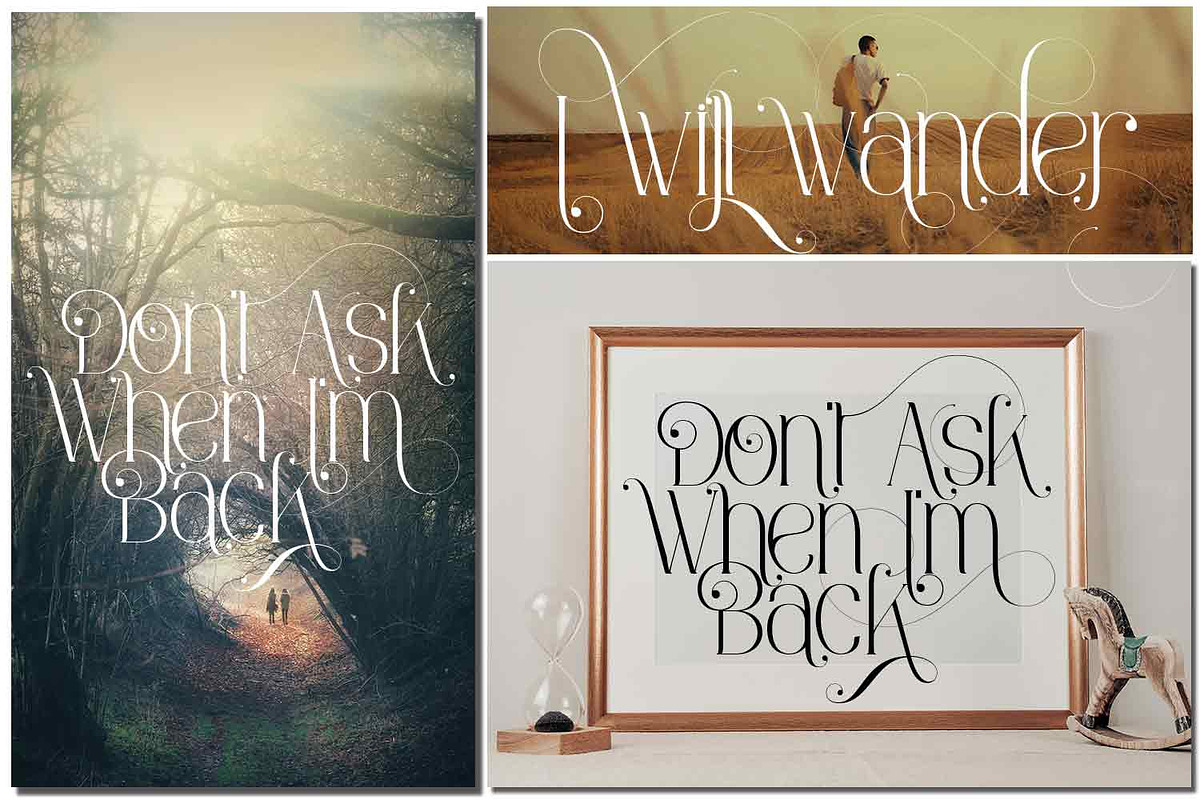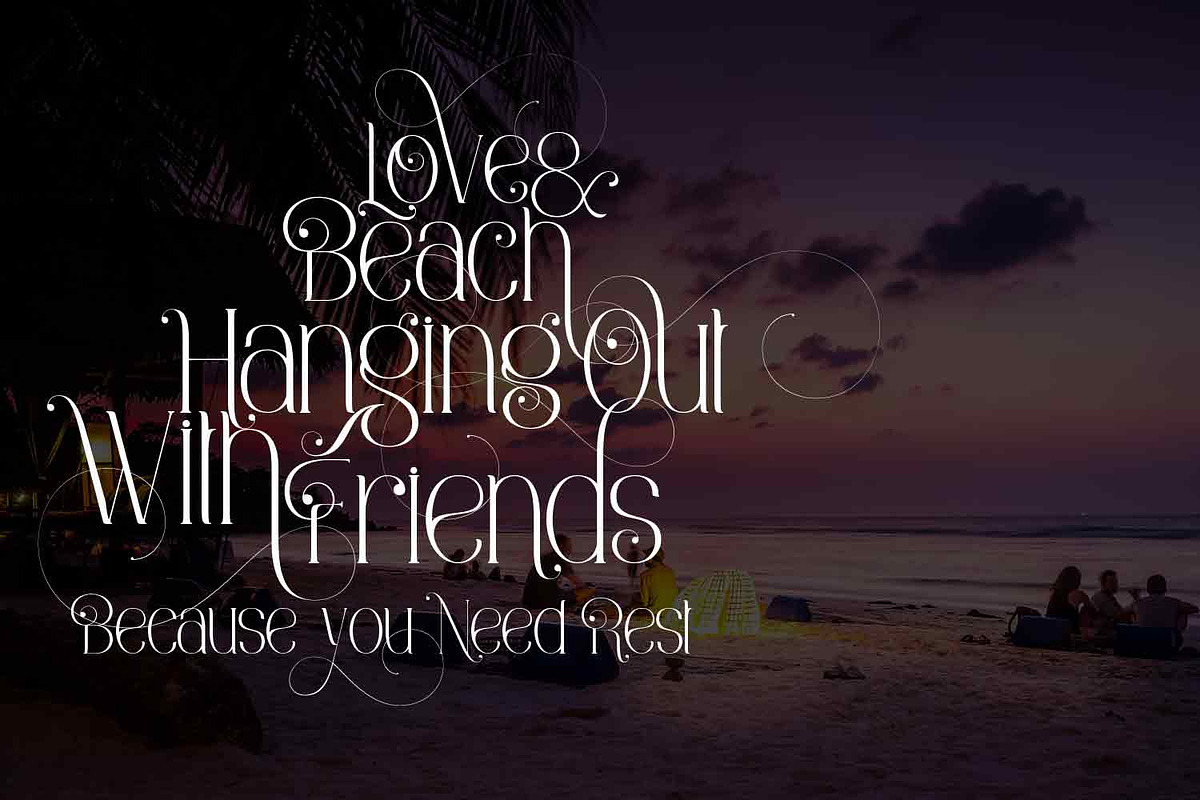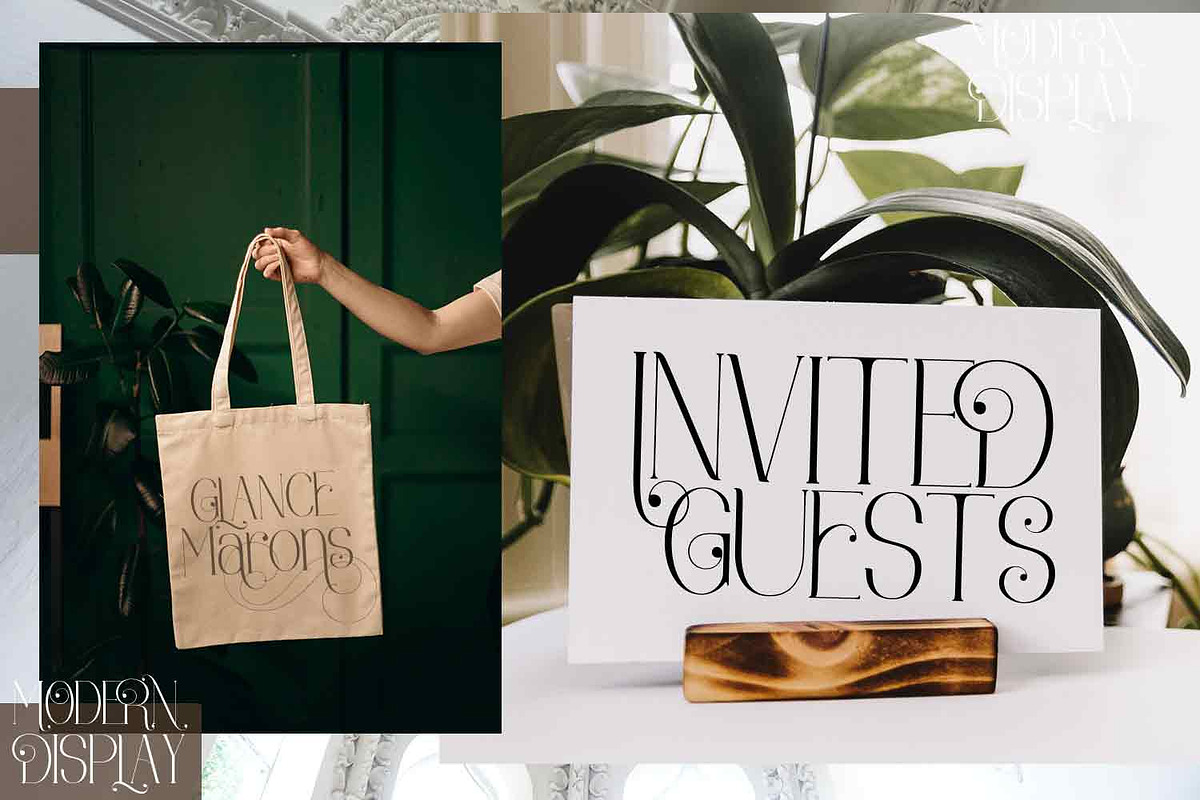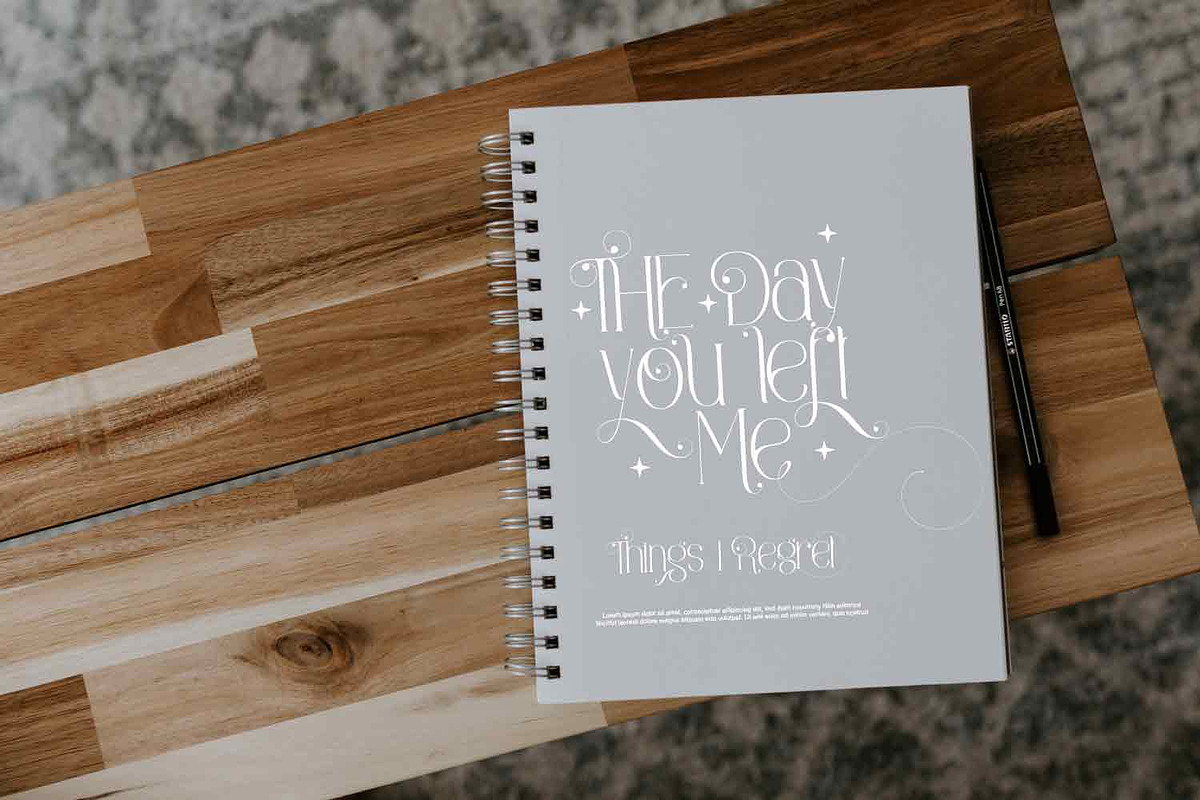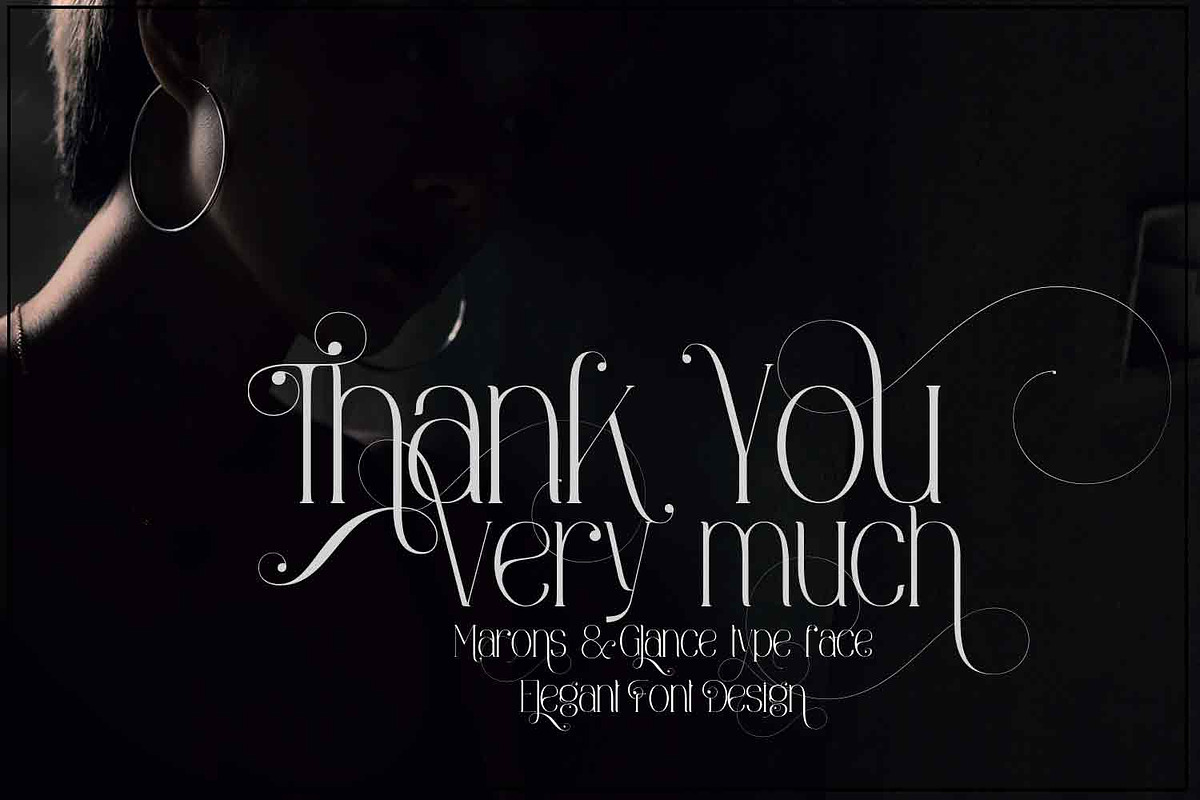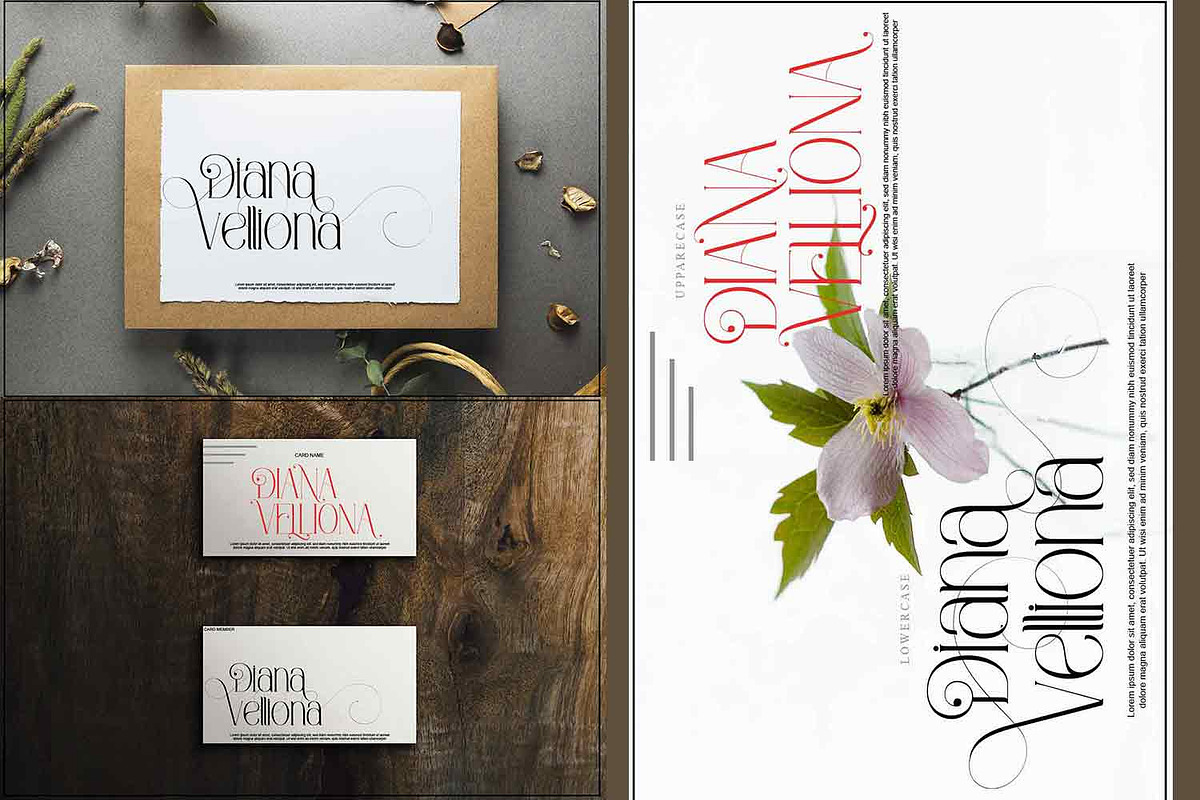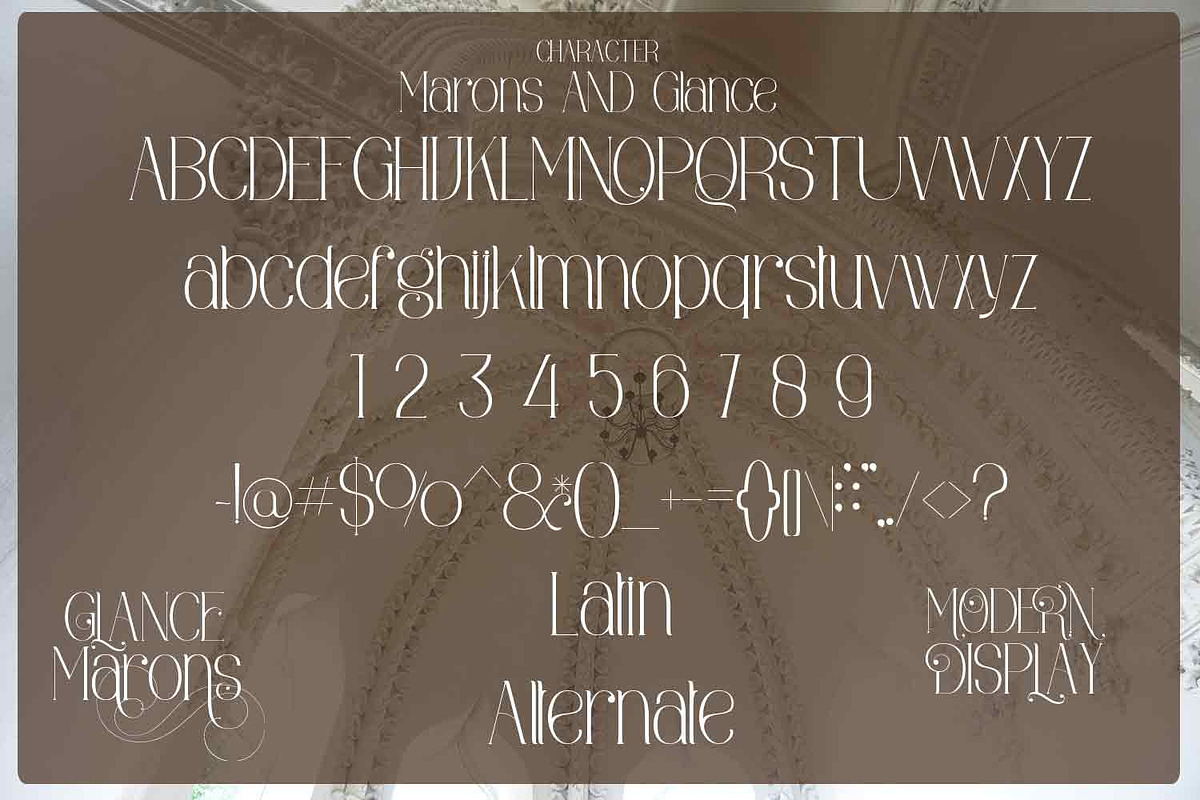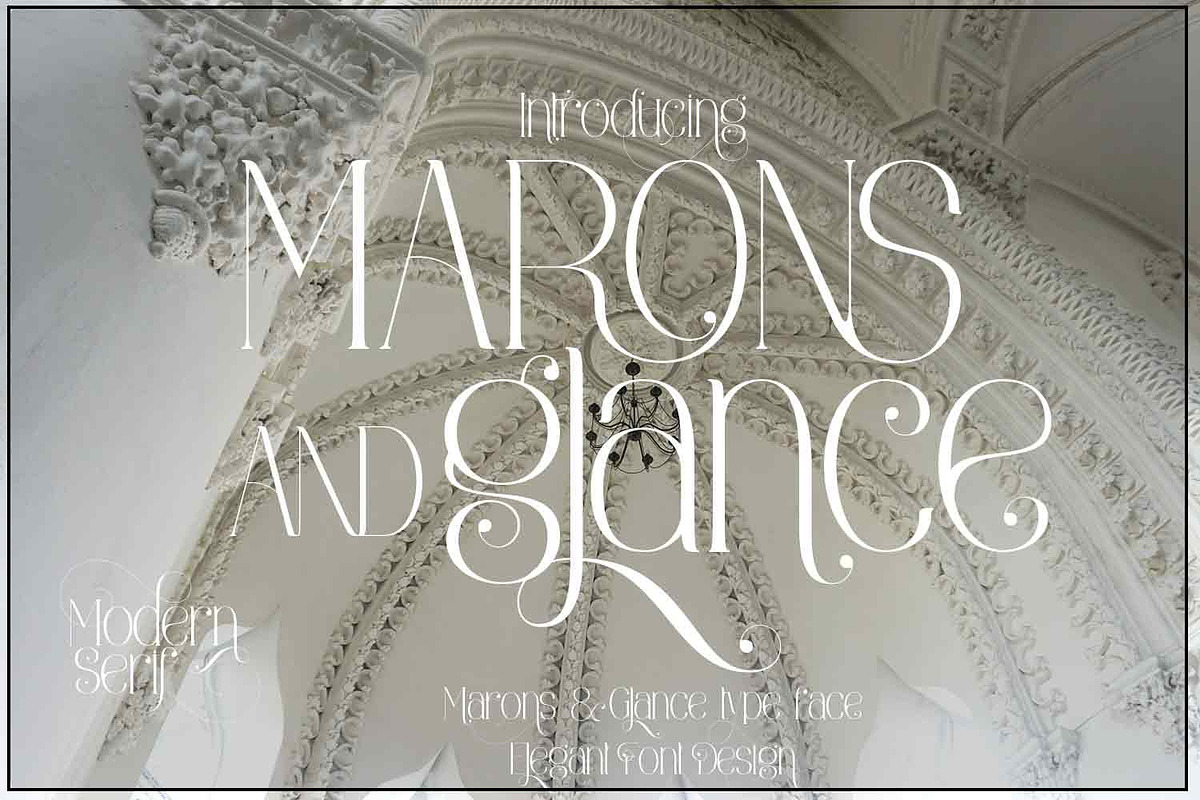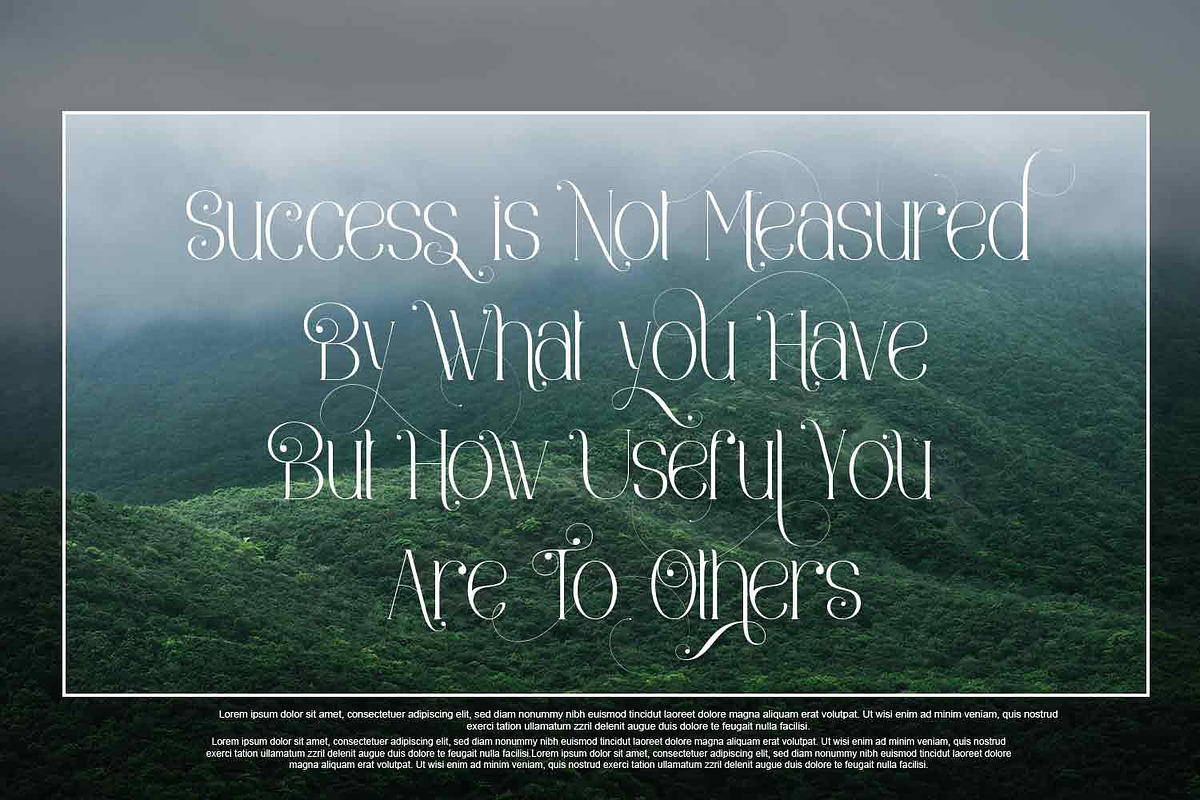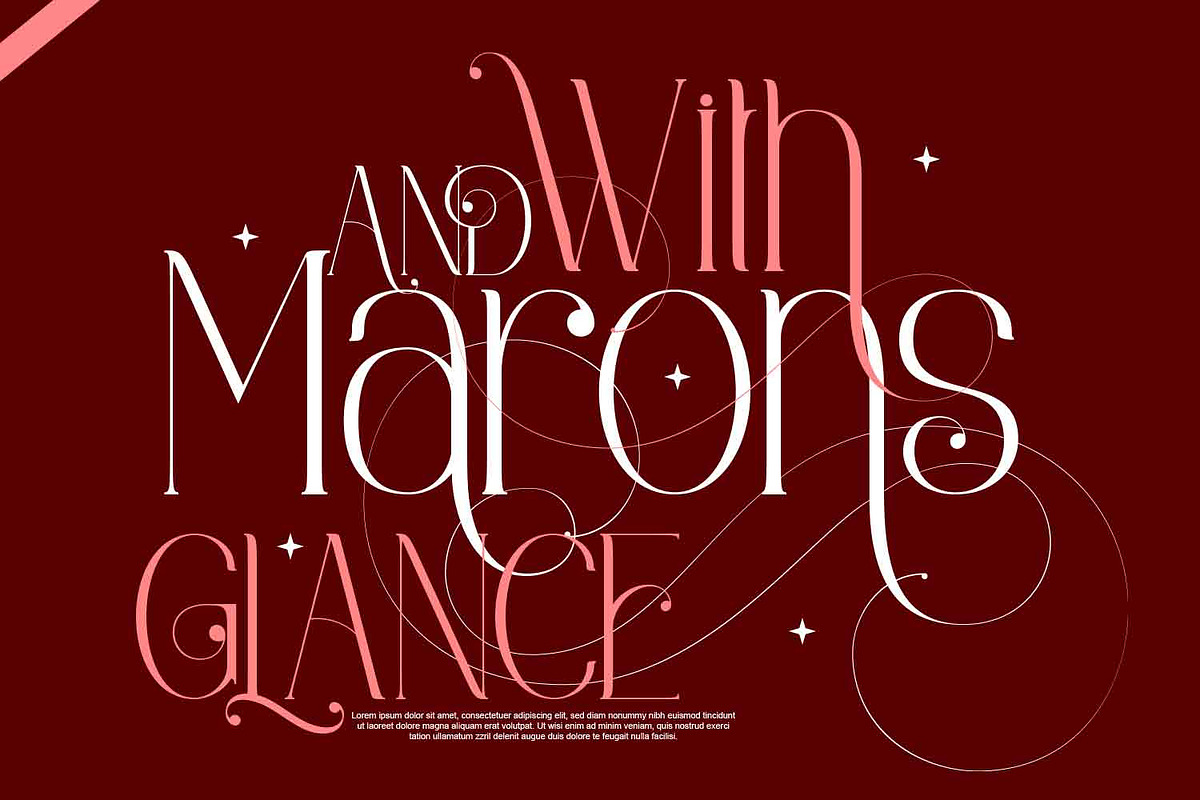
Marons and Glance
Marons and Glance This is a very charming and elegant font, very beautiful to look at and displays the impression of endless luxury, very suitable for all types of designs that want to display the impression of deep beauty. there are several characters that you can use, and combine them, very easy to use can be accessed with the glyph you are using